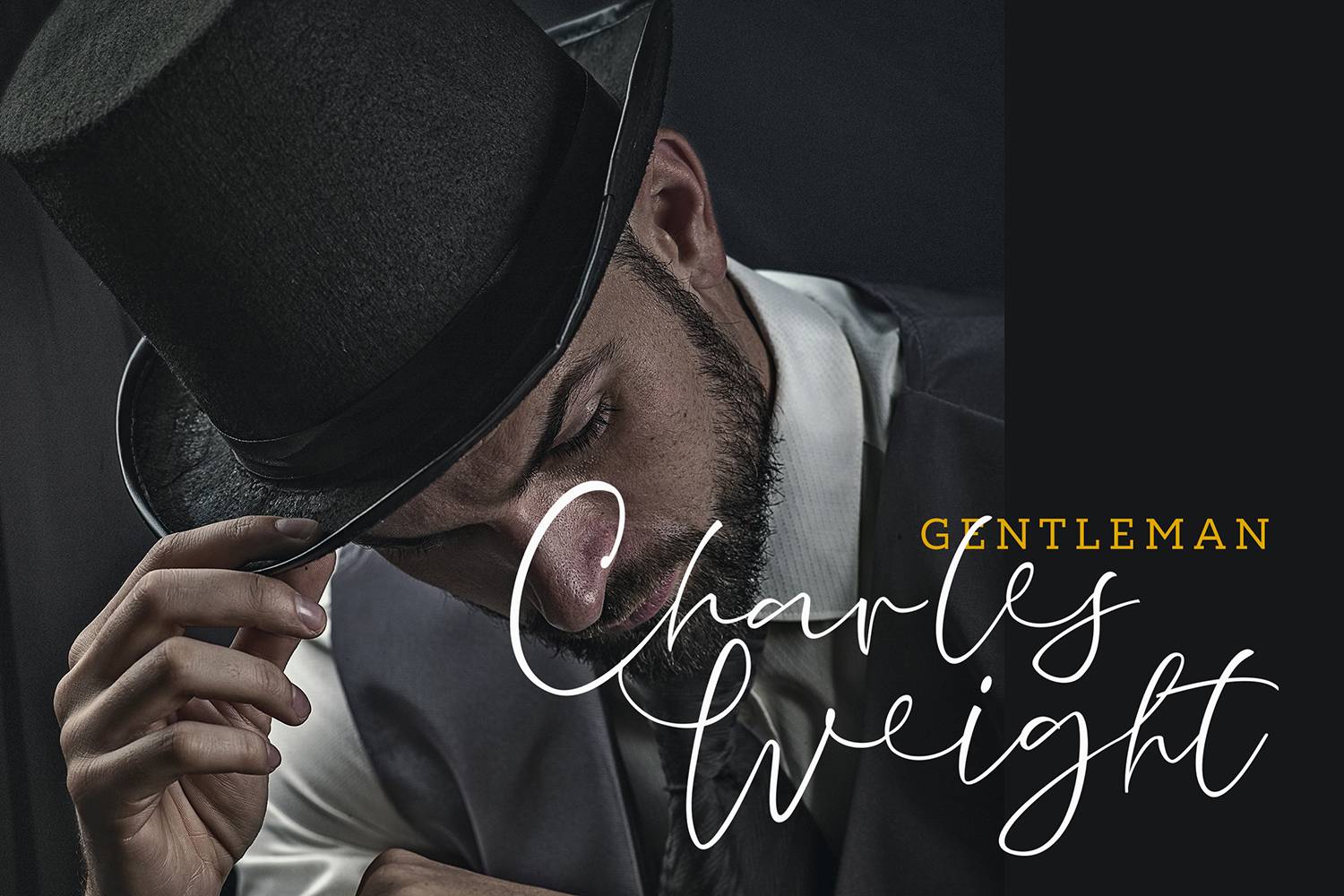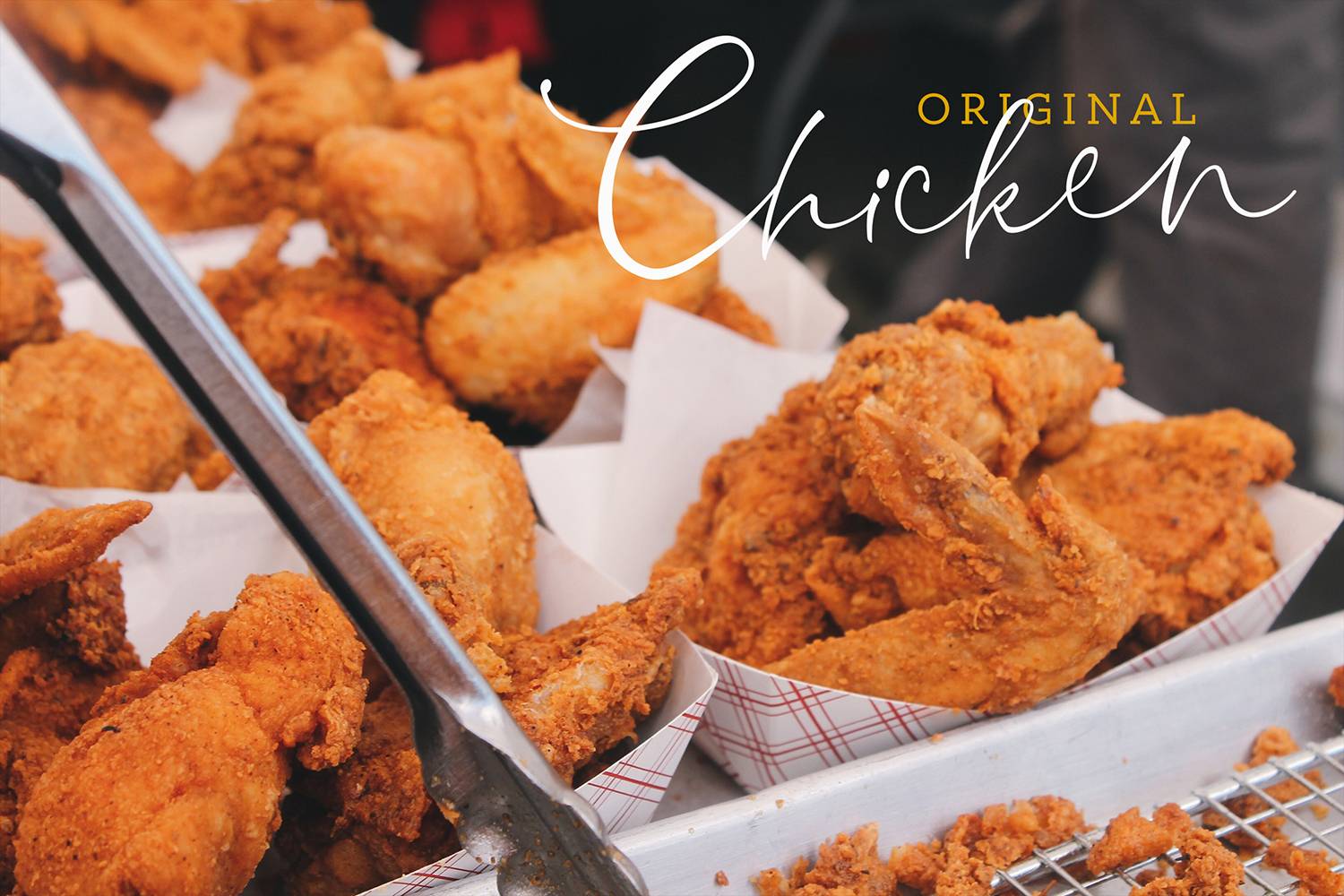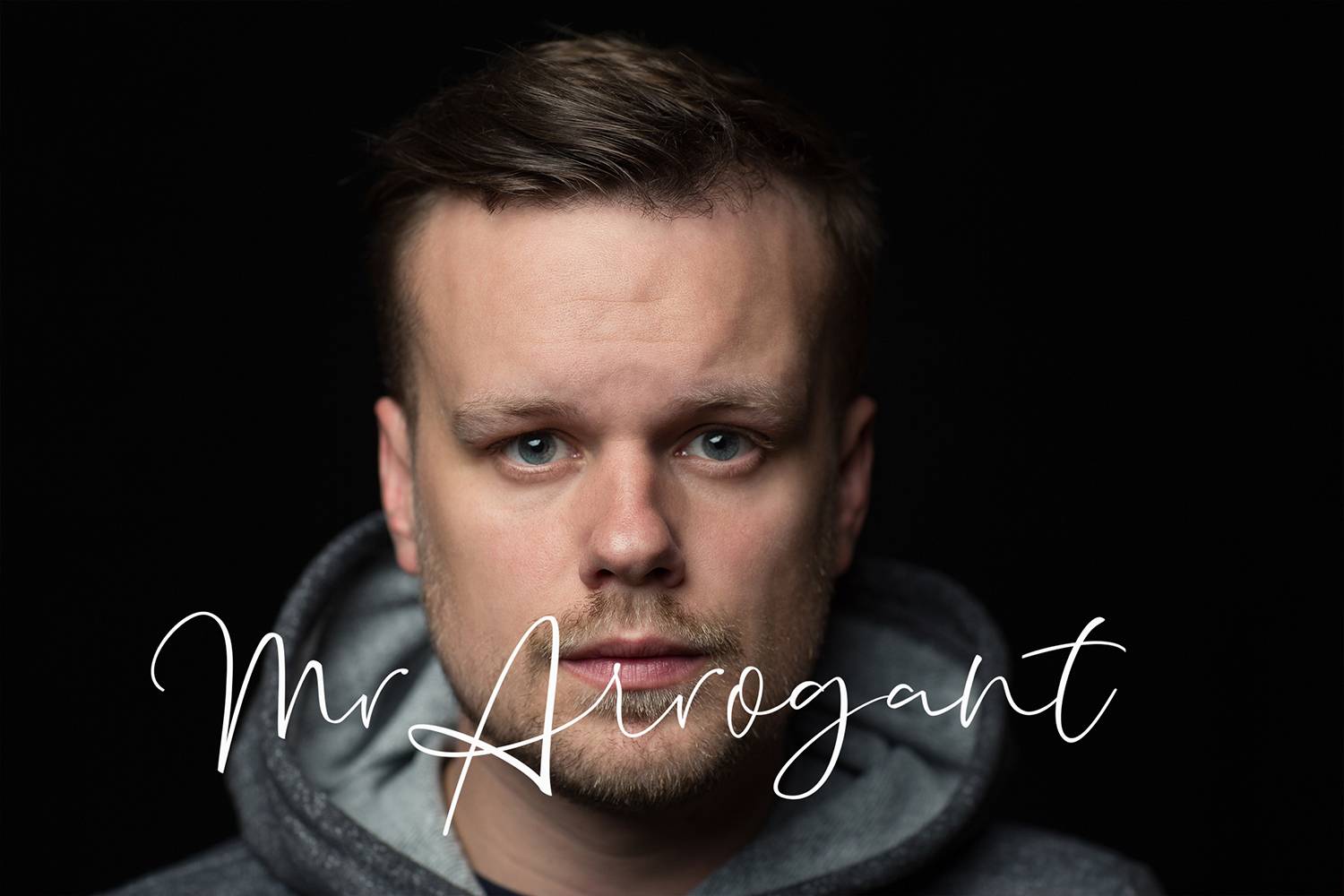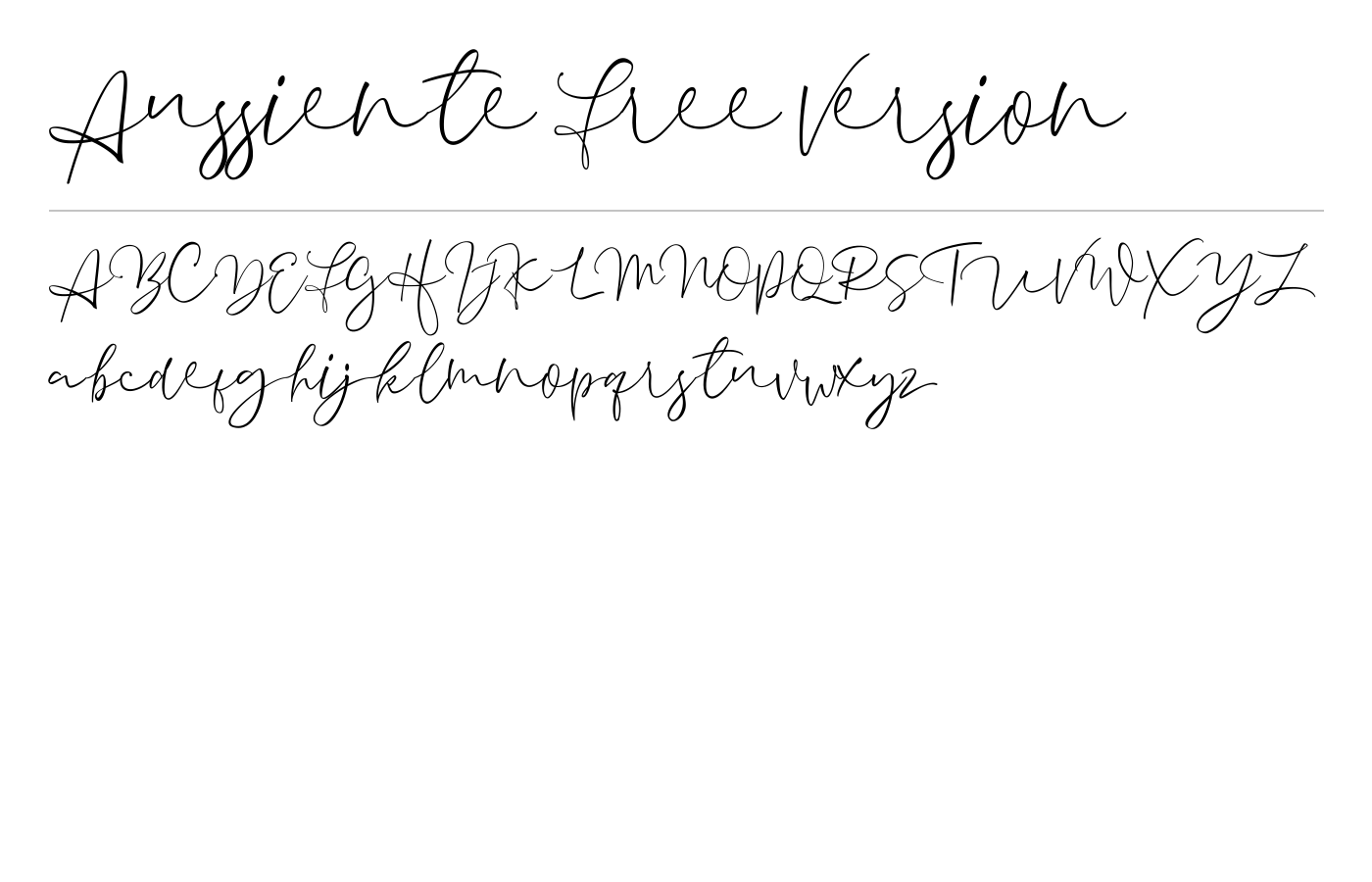
Aussiente is a delicate, handwritten script font that exudes an elegant and personal touch with its thin, flowing strokes and airy letterforms. Its casual yet refined style makes it ideal for invitations, branding, and lifestyle designs where a fresh, artistic feel is desired. This font works beautifully in projects that seek to convey sophistication with a friendly, approachable vibe.
Aussiente Font
About Aussiente Font
| Font family | Aussiente Font |
| Designer | Inspirasign |